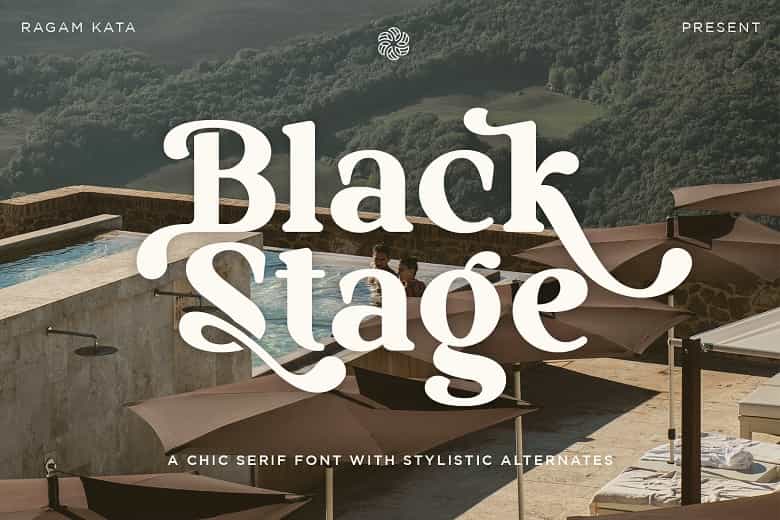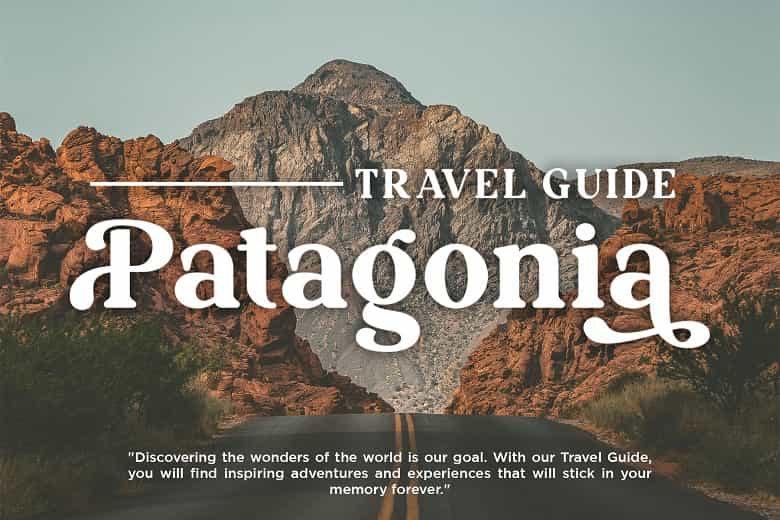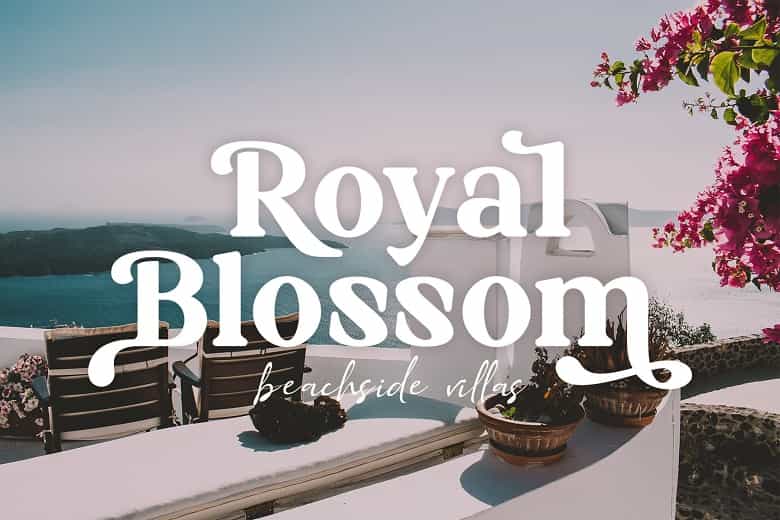
Black Stage is a cute and attention grabbing vintage serif font. With the combination of an elegant serif style with a classic vintage feeling this font is able to create an atmosphere of a certain age but remains timeless. Black Stage offers a versatility in the creation of text by using the stylistic alternates feature. The style of the letters can also be changed to the desired one through the style alternatives given.